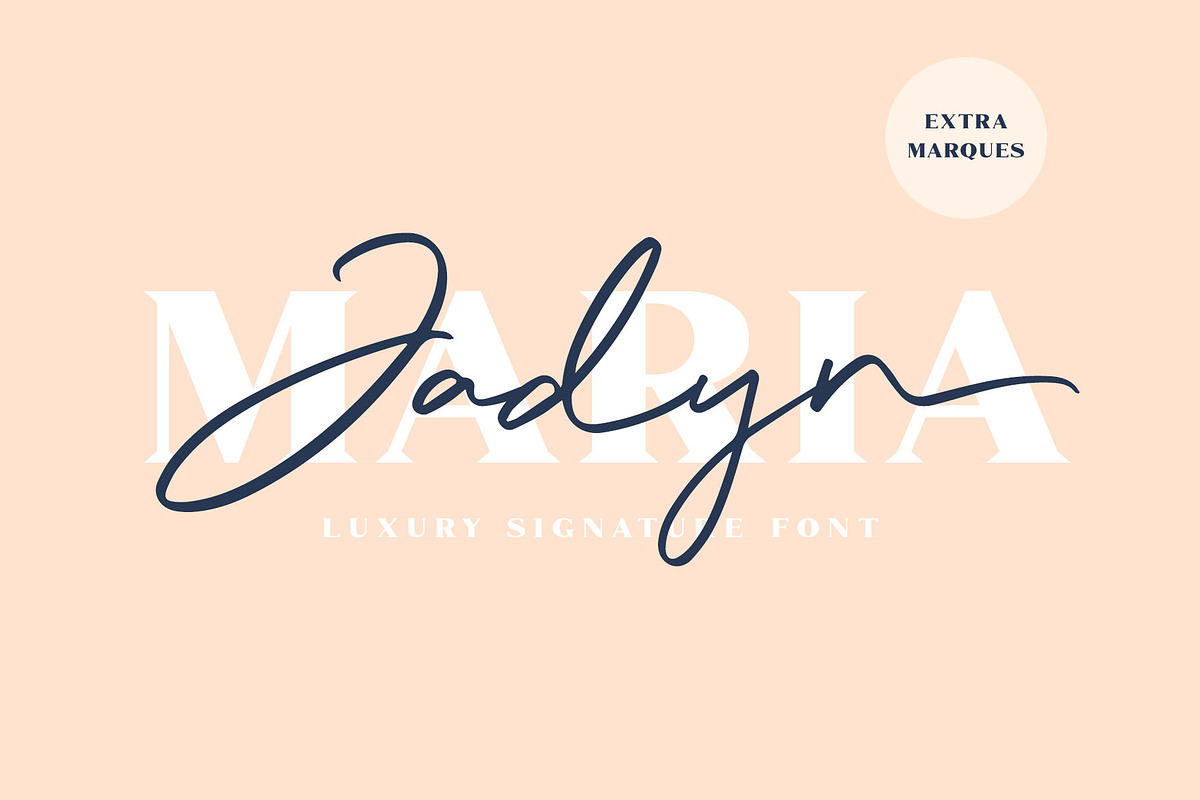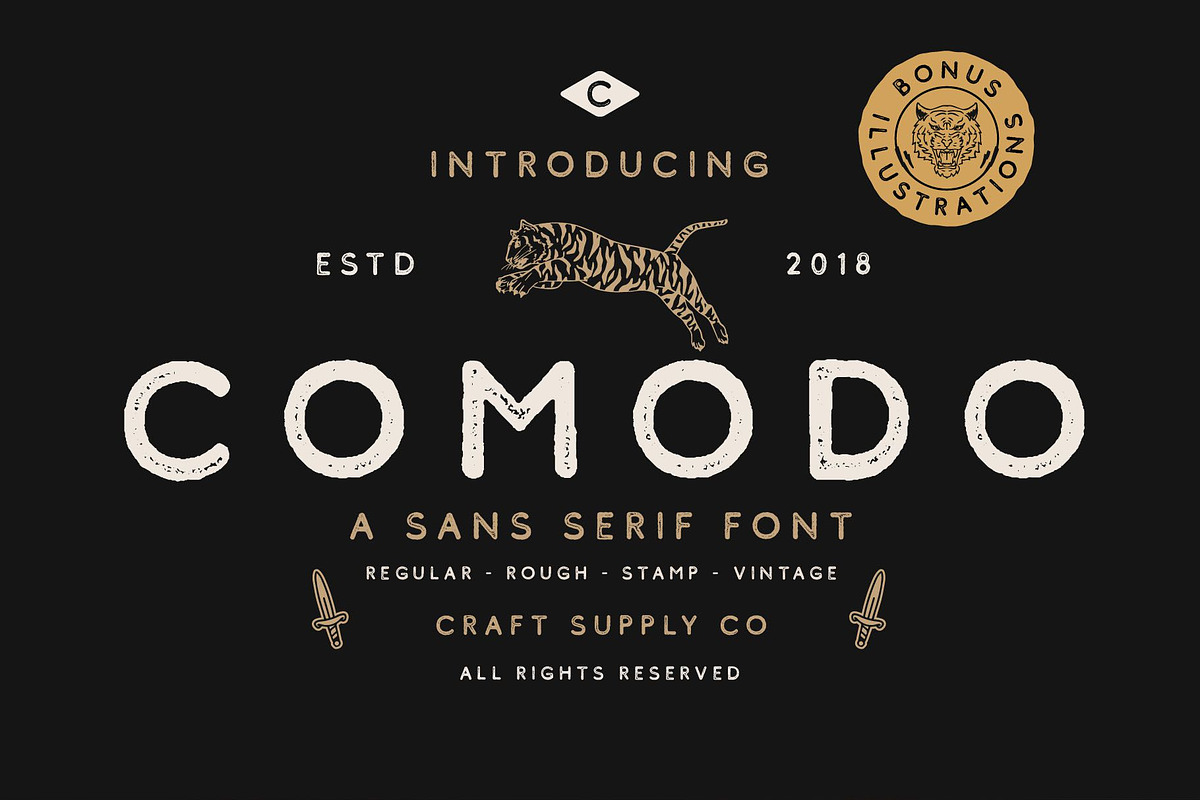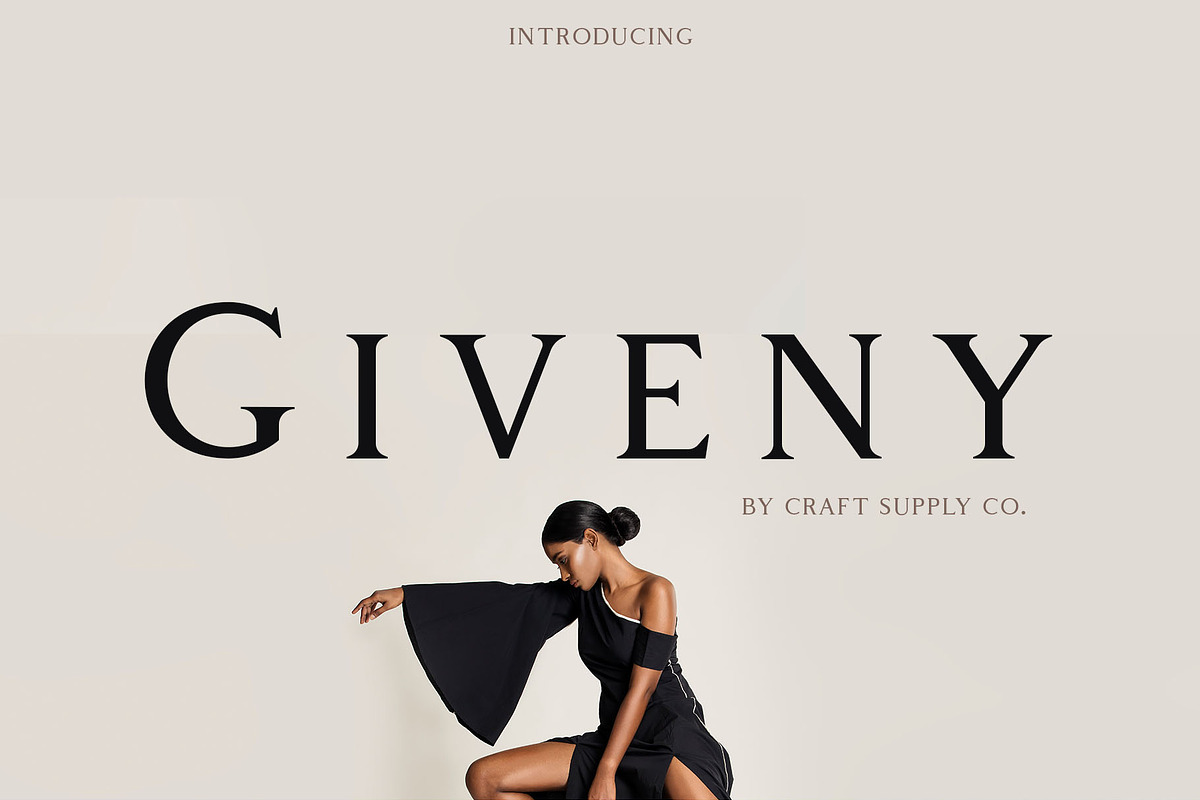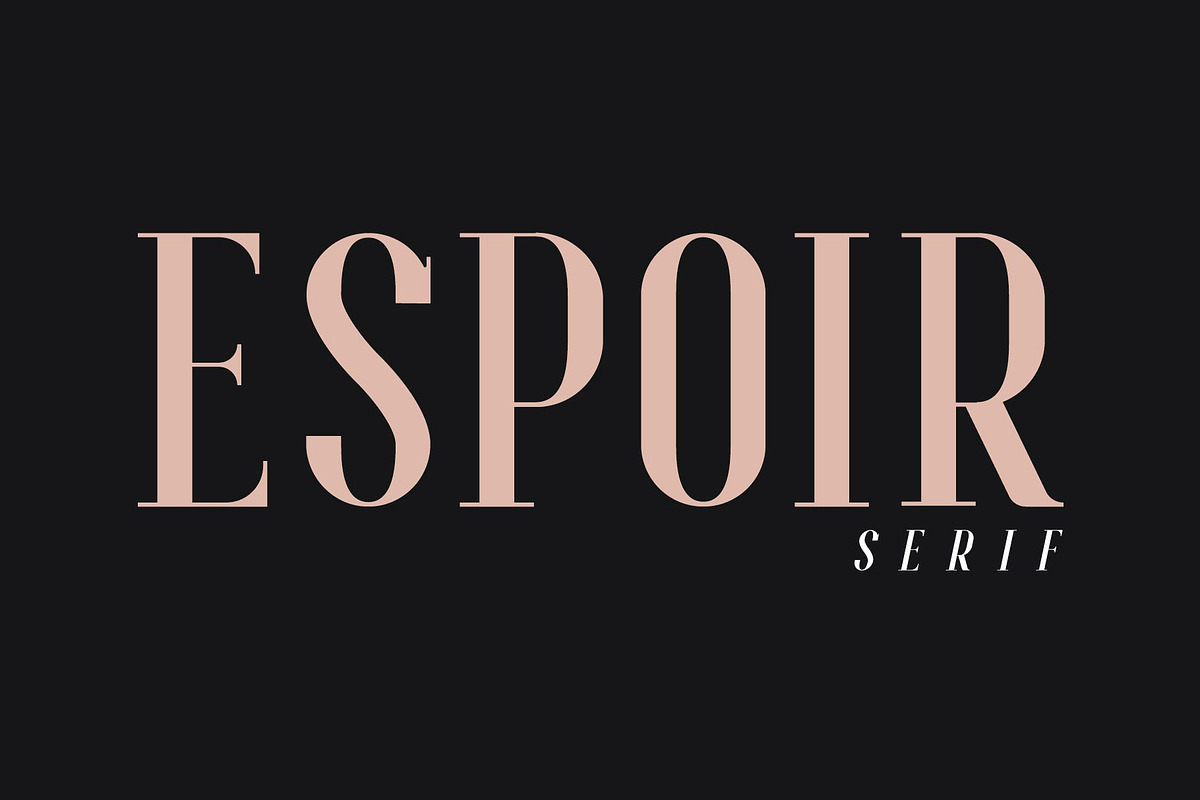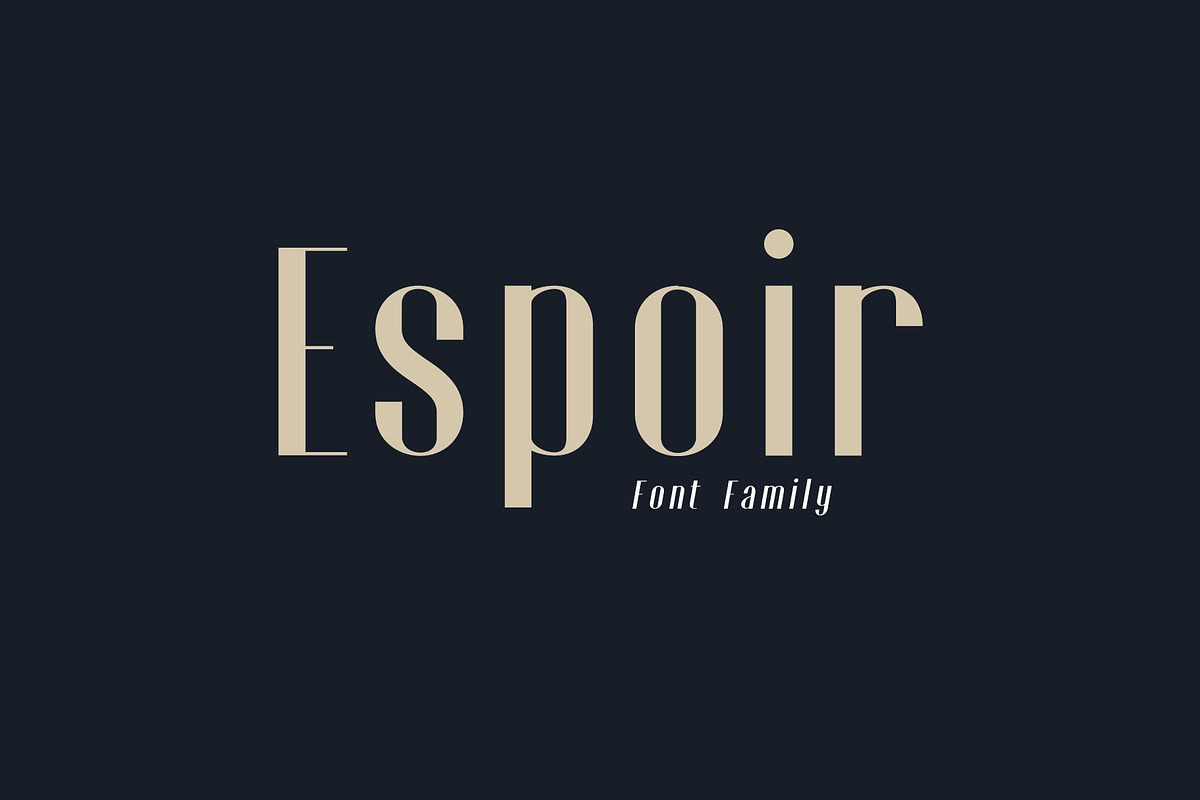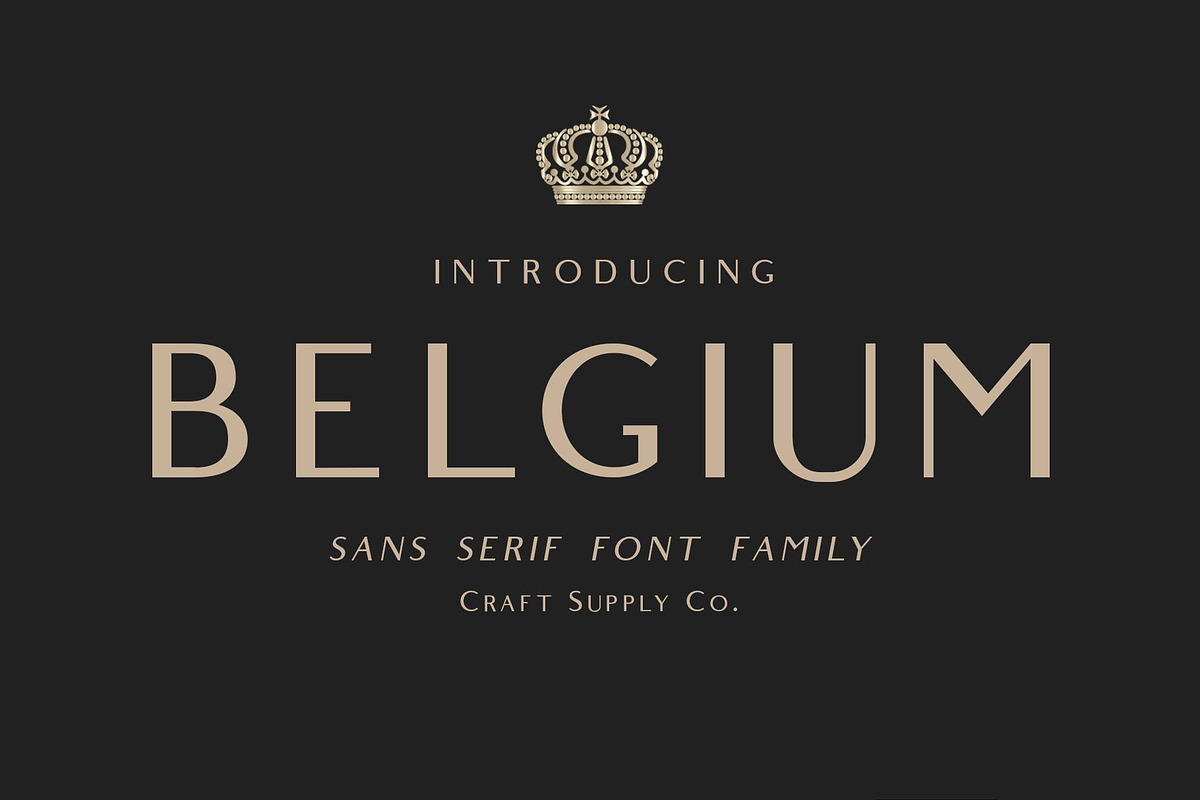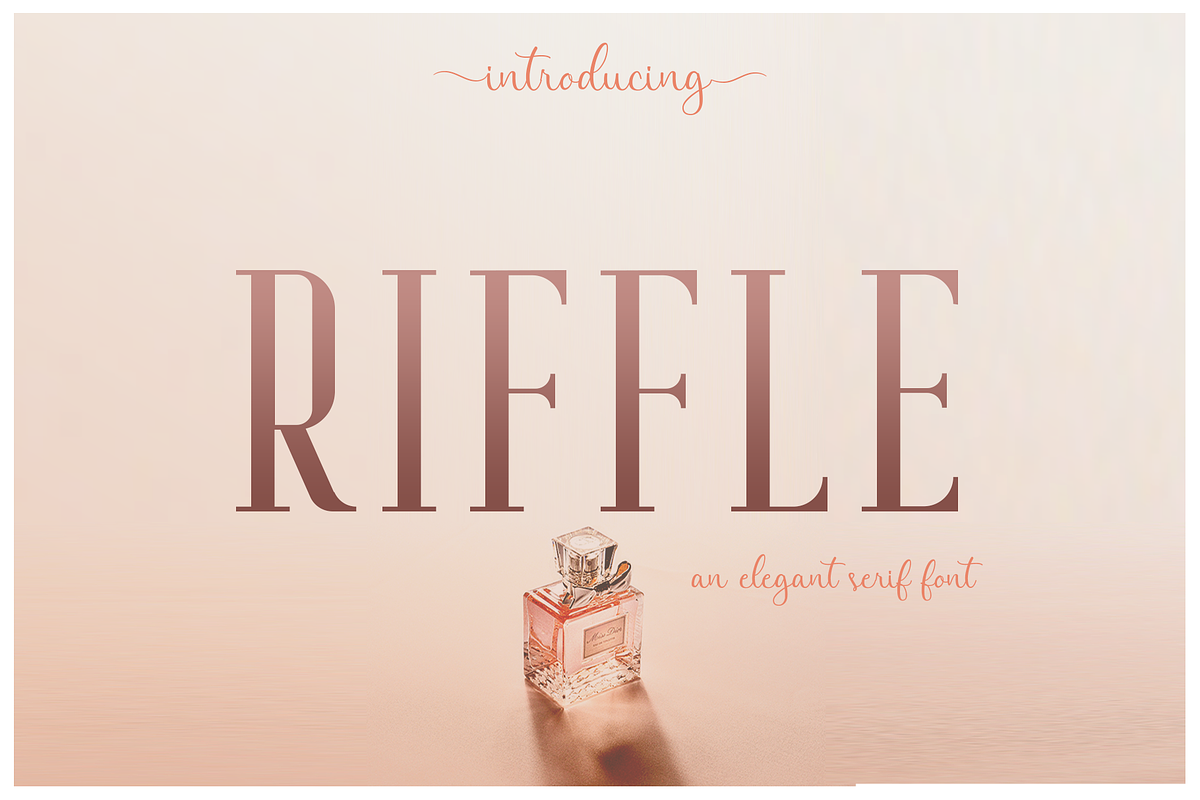
FANTASTIC Font Bundle (93%OFF)
⚡ Introducing FANTASTIC Font Bundle (93% OFF) ⚡
This bundle includes 25 font families 90 fonts (Serif, Sans Serif & Display) & 100+ (illustrations, labels, & badges). This bundle is a terrific toolbox for display purposes. It would be a perfect choice to design posters, headings, letterhead, merchandise, logos, t-shirts, magazine, banner, and many more.
Also suitable for happening style like handdrawn design, craft design, any DIY project, book title, wedding font, pop vintage design, retro design or any purpose to make your art / design project look pretty and trendy.
Belgium - Font Family ( )
Prestage Font Family ( )
CS Rocky Font + Extras ( )
Finland - Font Family ( )
Espoir Sans - Font Family ( )
CS Sandreas - Font Family ( )
Houston - Font Family ( )
CS Harley - Font Family ( )
CS Gordon Font Family ( )
CS Maria Font Family ( )
CS Rosalia Font Family ( )
CS Roger Font Family ( )
CS Nancy Font Family ( )
CS Mulan Font Family ( )
Bravely Font Family ( )
Pastelyn Font Family ( )
Pommel Font Family ( )
Rickies Font Family ( )
- The Fonts :
- Comodo Font Family + Illustrations ( )
- Offlander - Font Family ( )
- Espoir Serif - Font Family ( )
- Giveny - Classy Serif Font ( )
- Jadyn Maria - Luxury Signature Font ( )
- Bondie - Condensed Sans Serif ( )
- Riffle - Font Family ( )